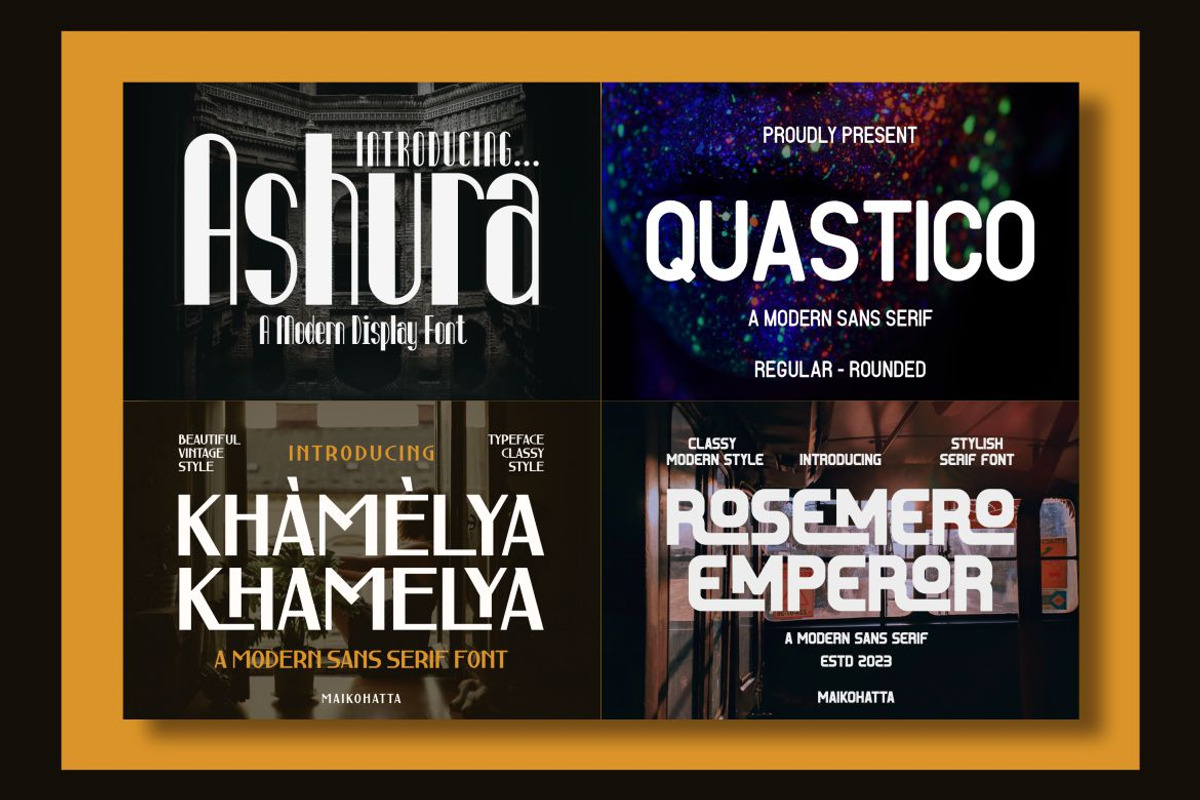
Modern Sans Serif Font Bundle
Introducing our new product Modern Sans Serif Font Bundle - Modern Font
Modern Sans Serif Font Bundle - Modern Font is a bold and authentic display font. The font is suitable for any branding project like logo, template design, esport, and many more. outstanding in a wide range of contexts.
Lowercase
Multilingual ( KHAMELYA, ROSEMERO EMPEROR, Quastico )
Ligature ( KHAMELYA, ROSEMERO EMPEROR )